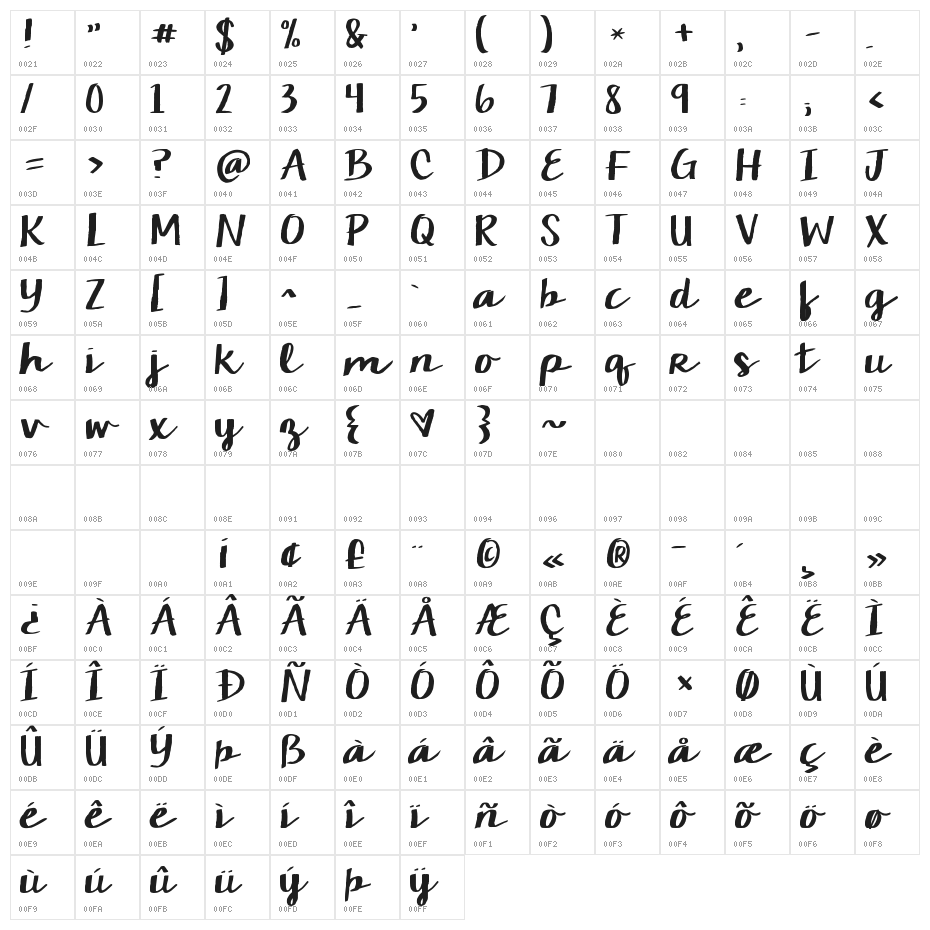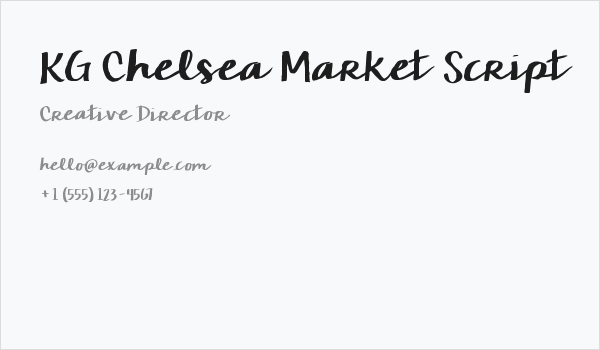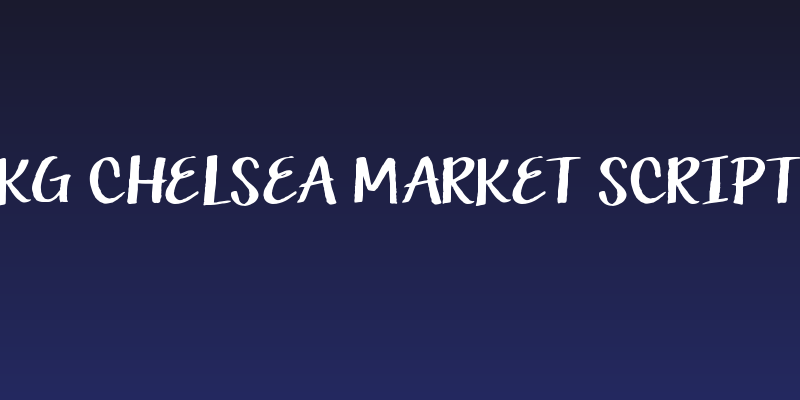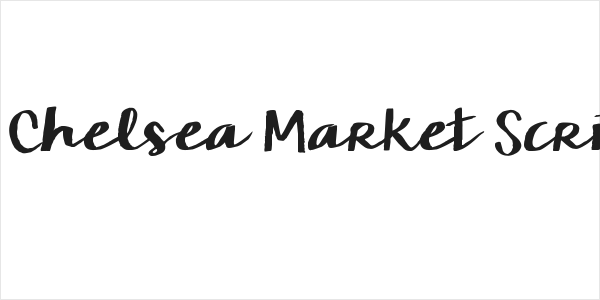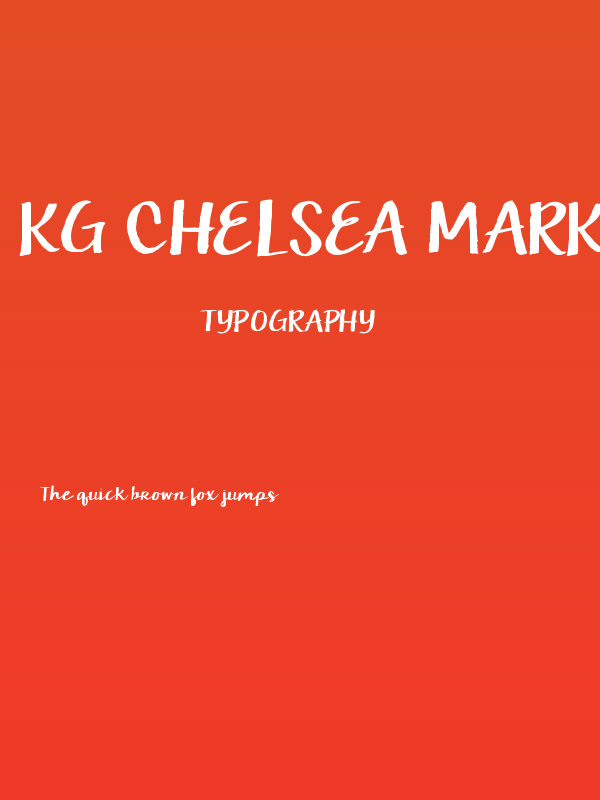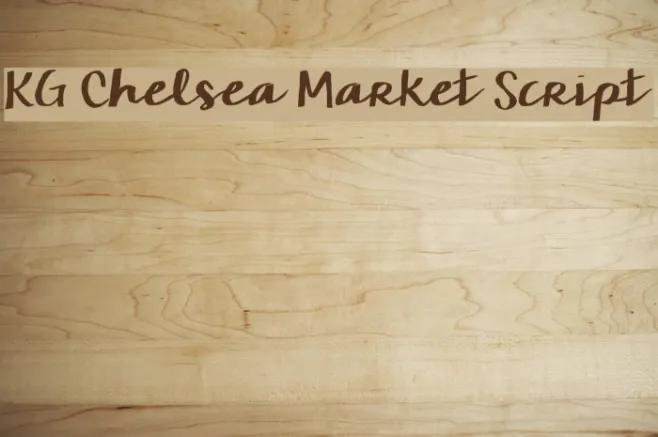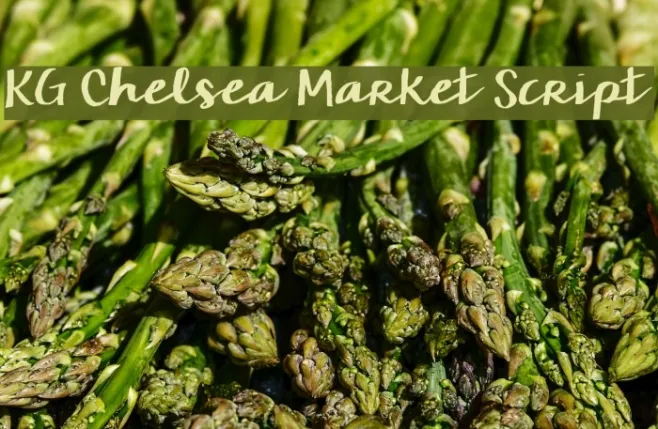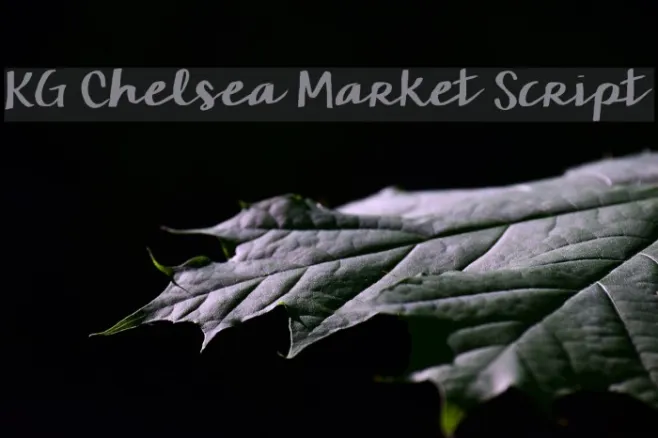
KG Chelsea Market Script Font
KG Chelsea Market Script Description
This font features a lively and energetic script style, characterized by its bold and fluid strokes. The uppercase letters exhibit a dynamic flow with varying stroke widths, giving them a hand-painted appearance. The lowercase letters maintain a consistent rhythm, with playful loops and curves that add a touch of whimsy. Numbers are bold and clear, ensuring readability while maintaining the font's artistic flair. Special characters are integrated seamlessly, enhancing the font's versatility. The overall design exudes a casual yet sophisticated vibe, making it suitable for a variety of creative projects.